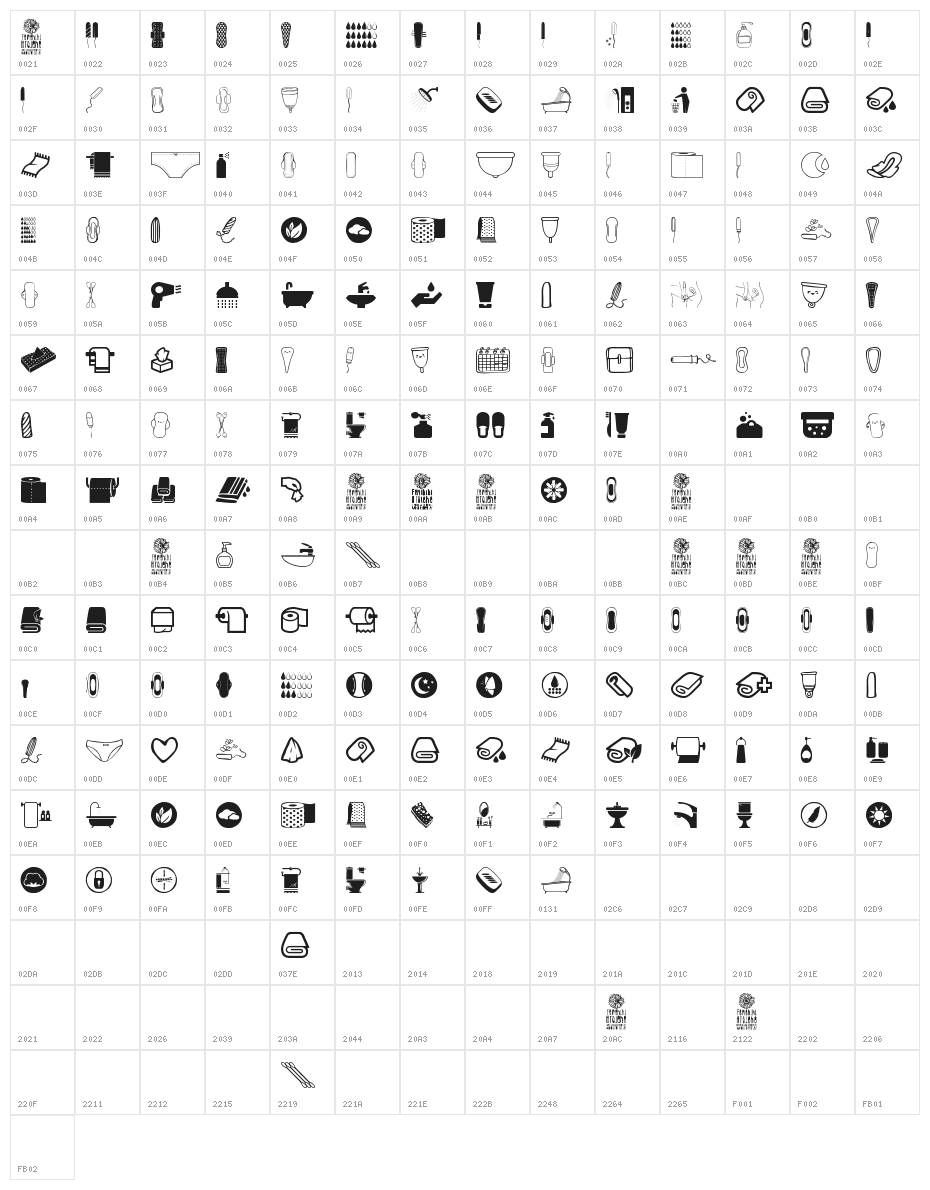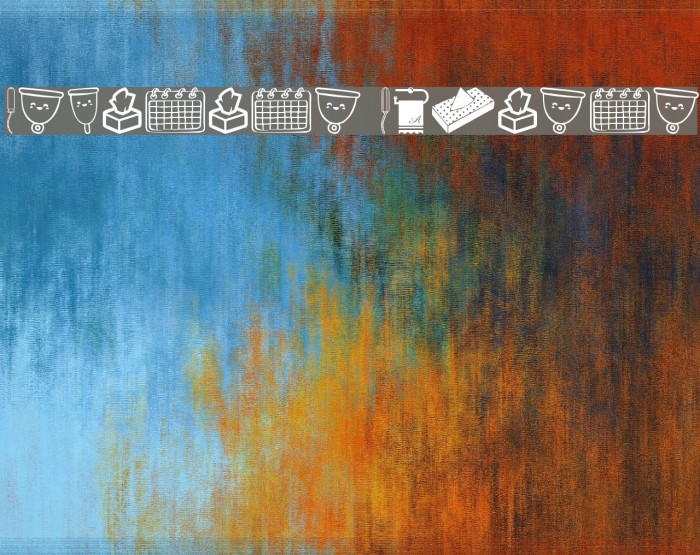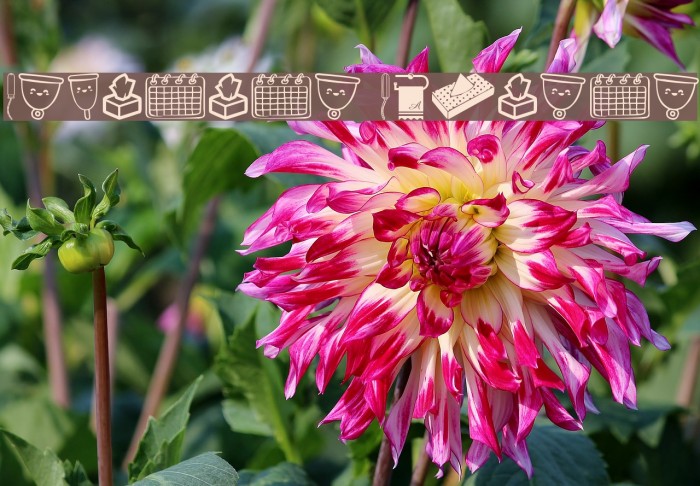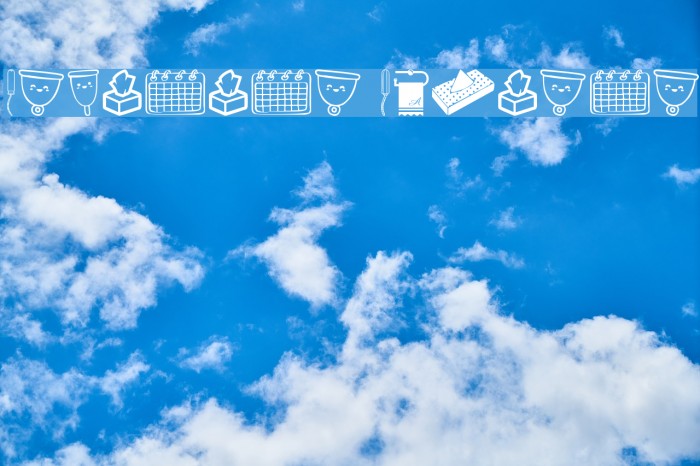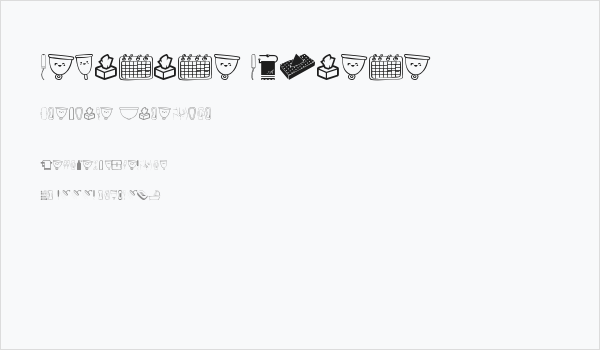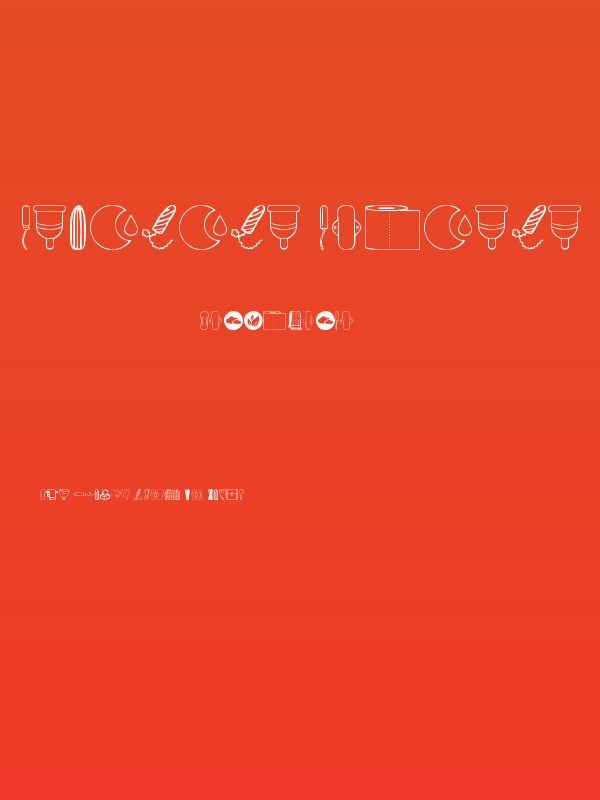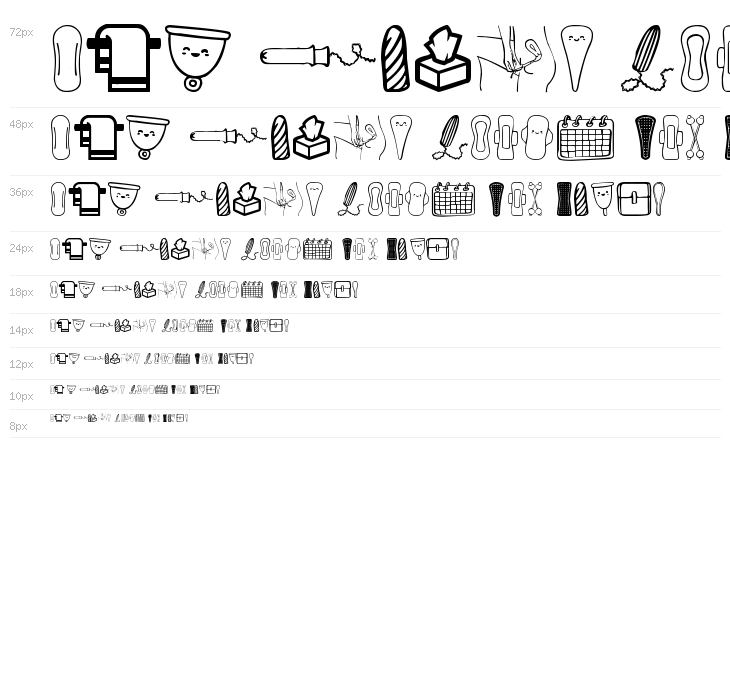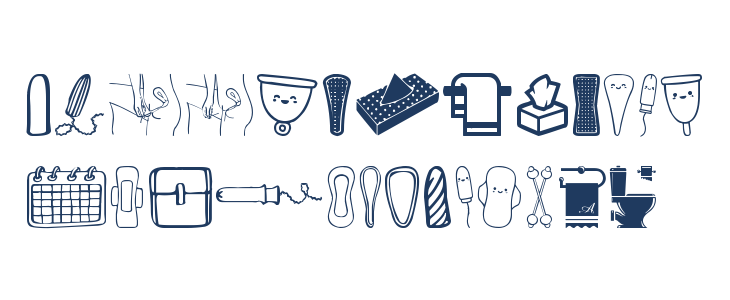
Feminine Hygiene Font
Feminine Hygiene Description
A playful, hand-drawn decorative font featuring feminine hygiene and self-care themed pictograms, including pads, tampons, menstrual cups, calendars, showers, and related icons. The letterforms are whimsical and irregular, with a casual, friendly appearance and variable line thickness.
| Overall Style | Decorative, Playful, Whimsical |
| Use Case | Headlines, Posters, Educational Graphics, Themed Events |
| Proposed Projects | Educational materials, awareness campaigns, infographics, posters, health blogs, packaging for hygiene products. |